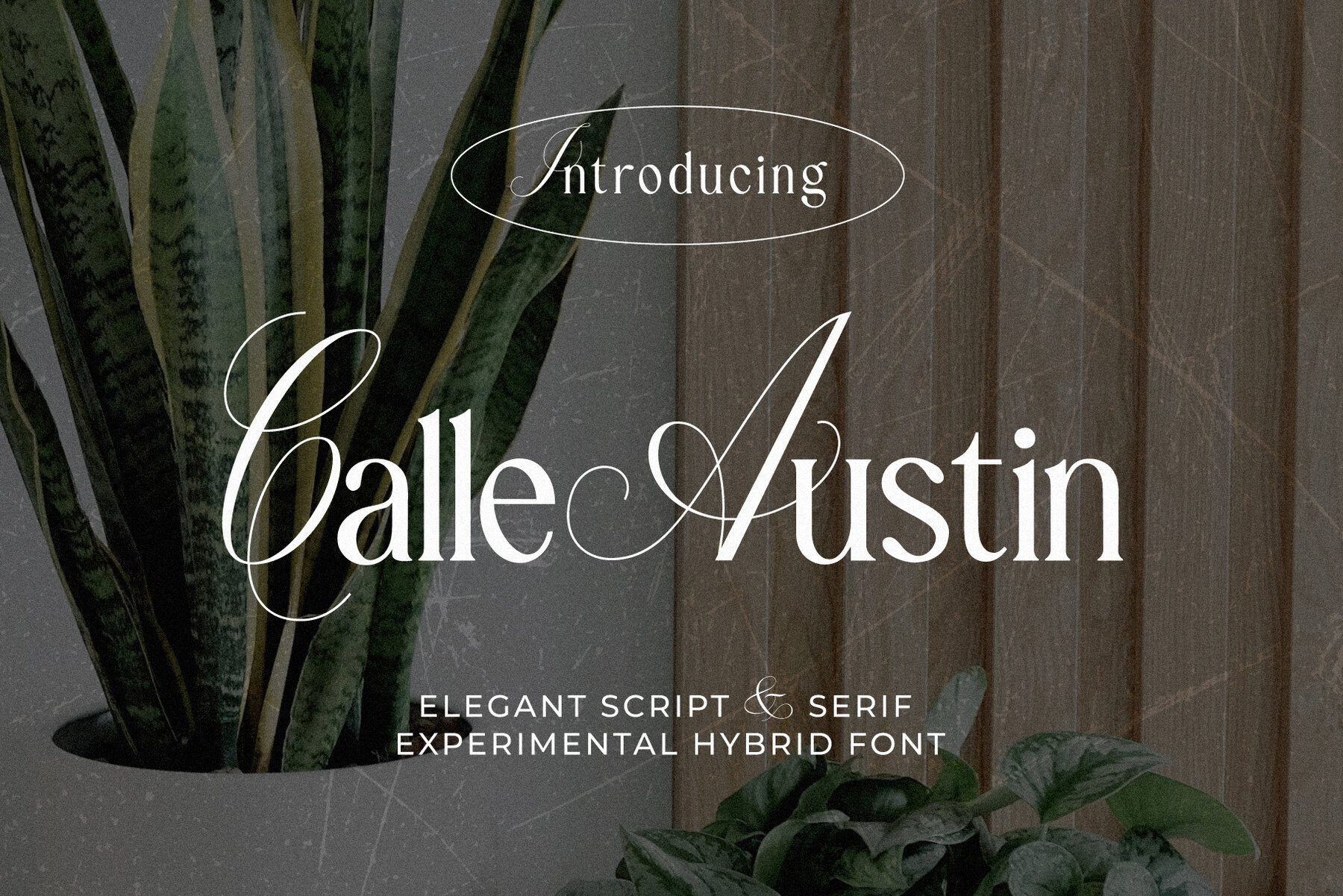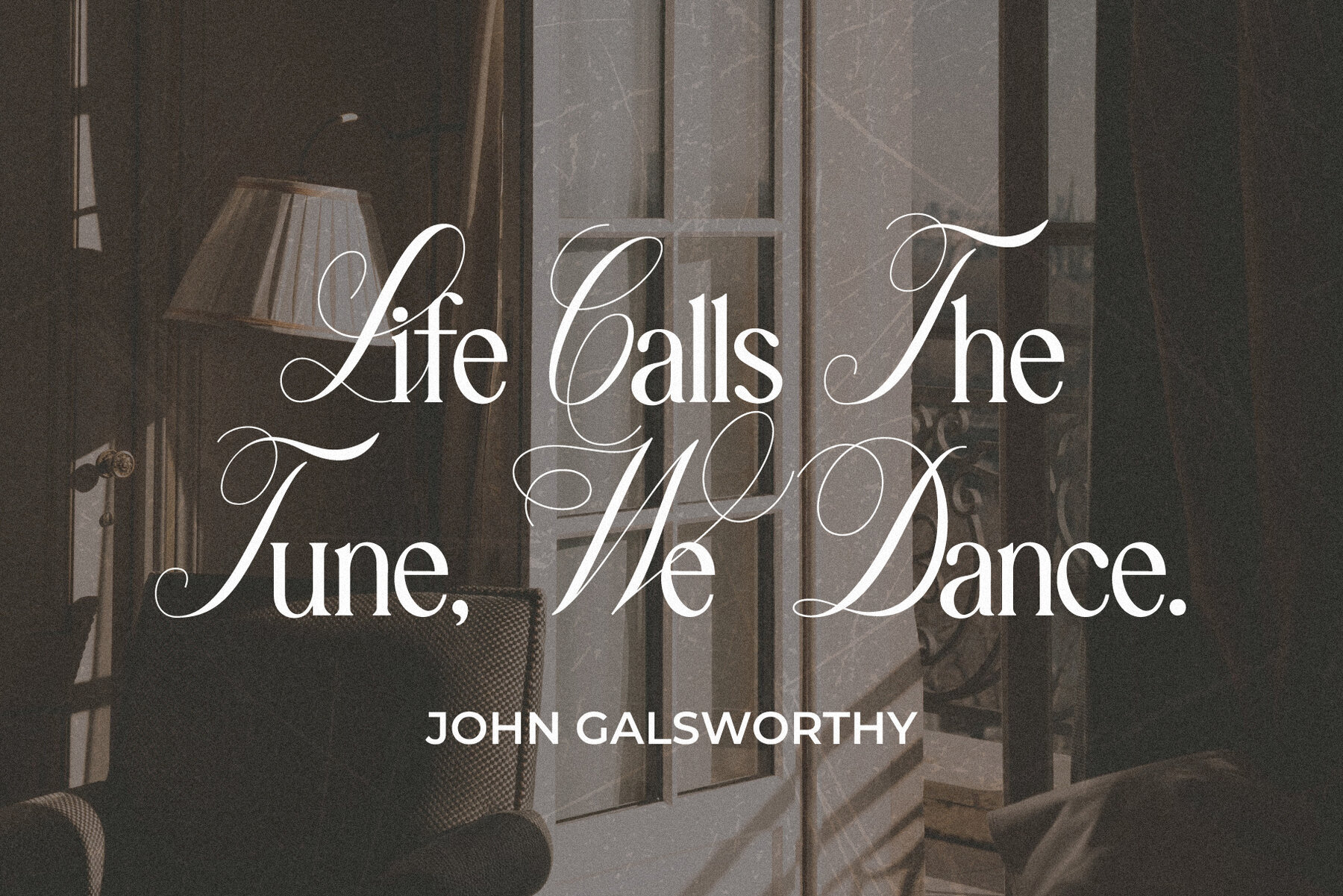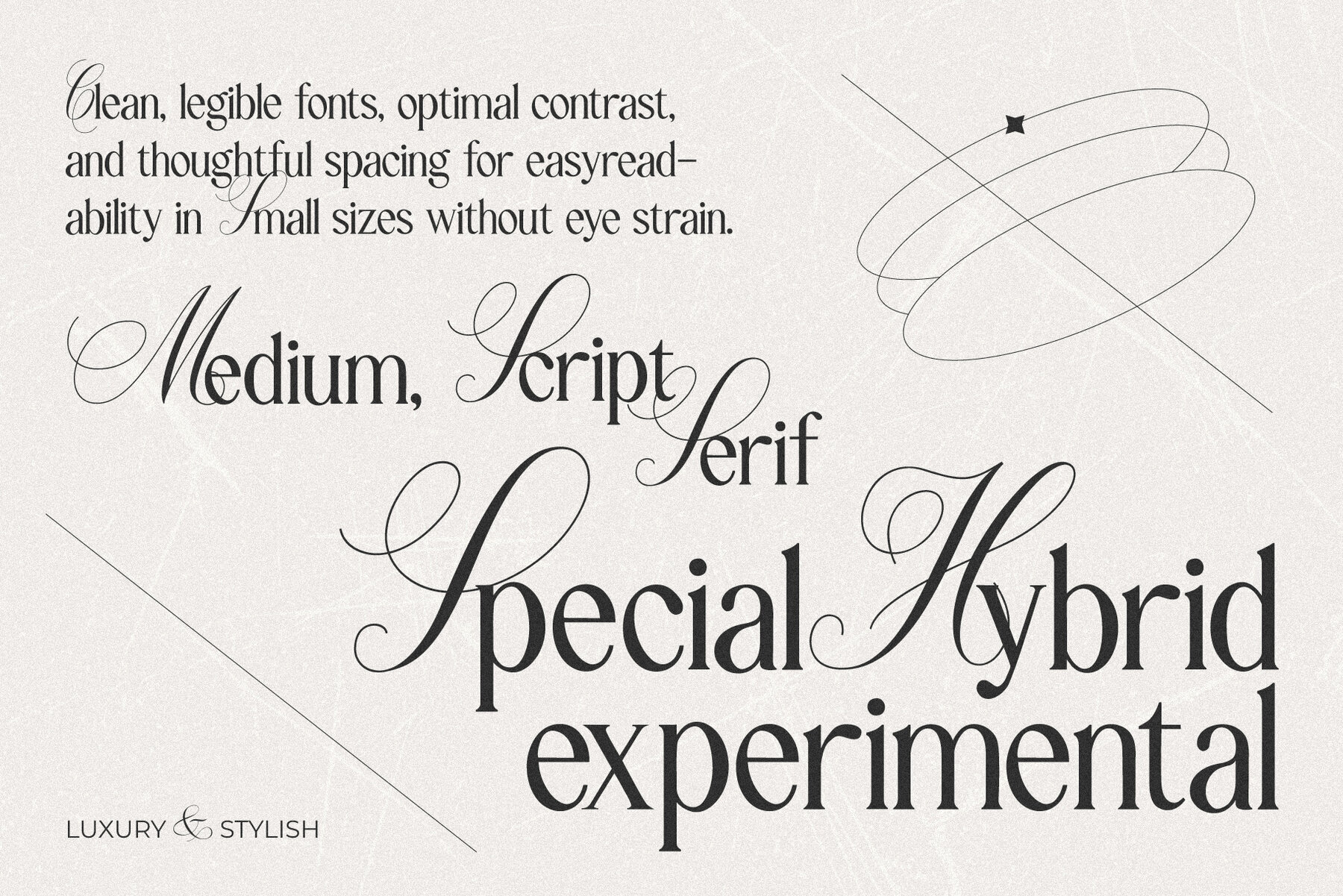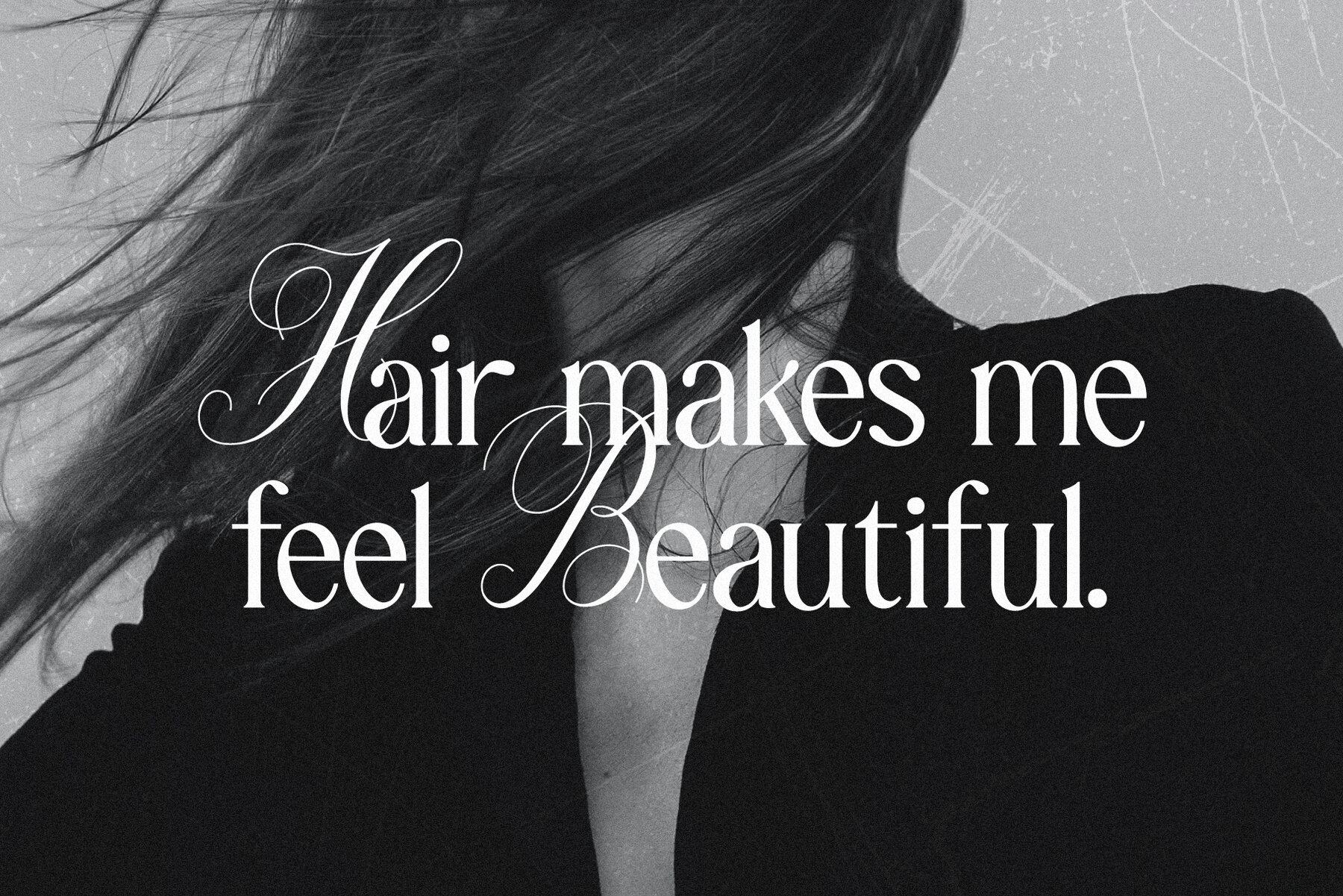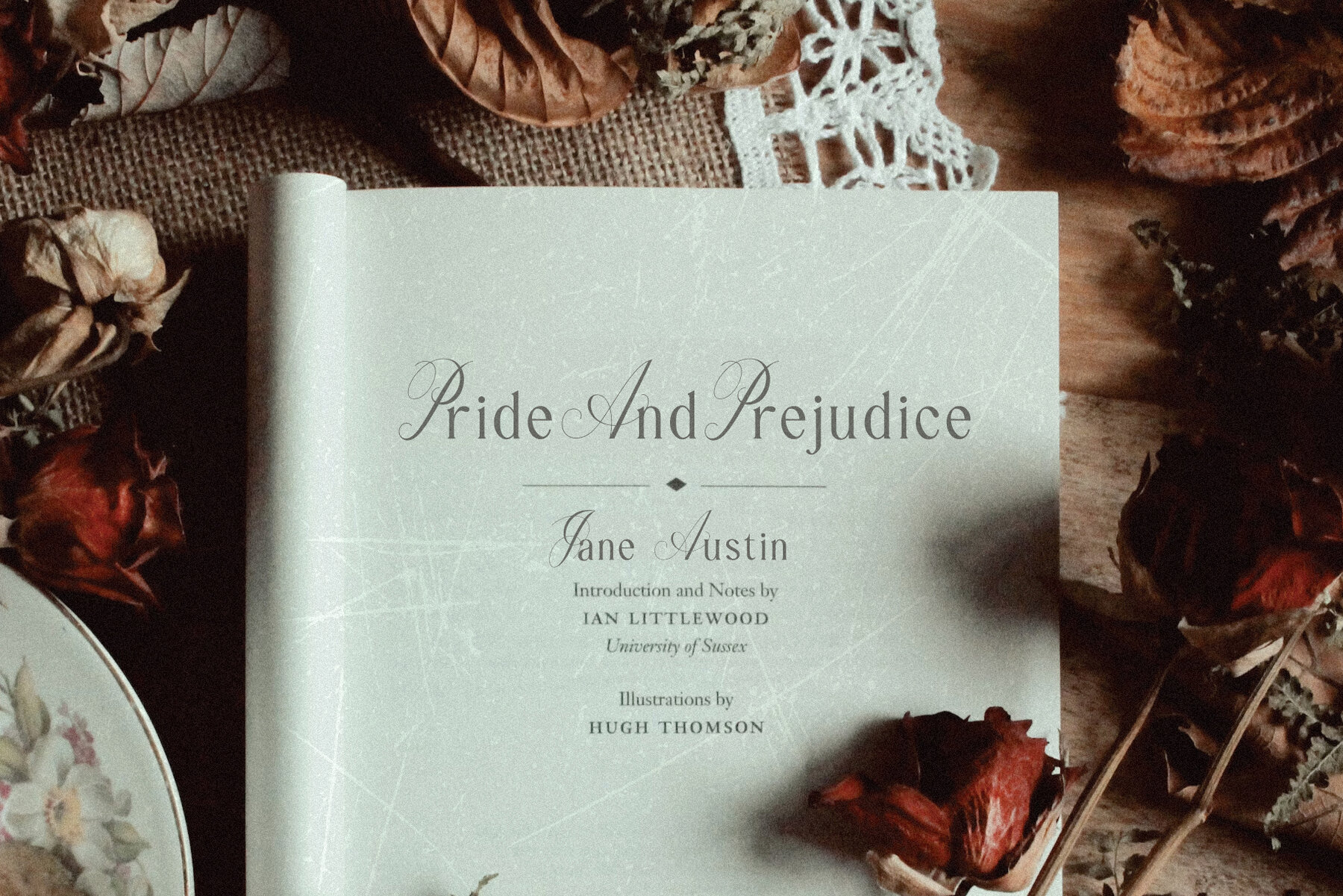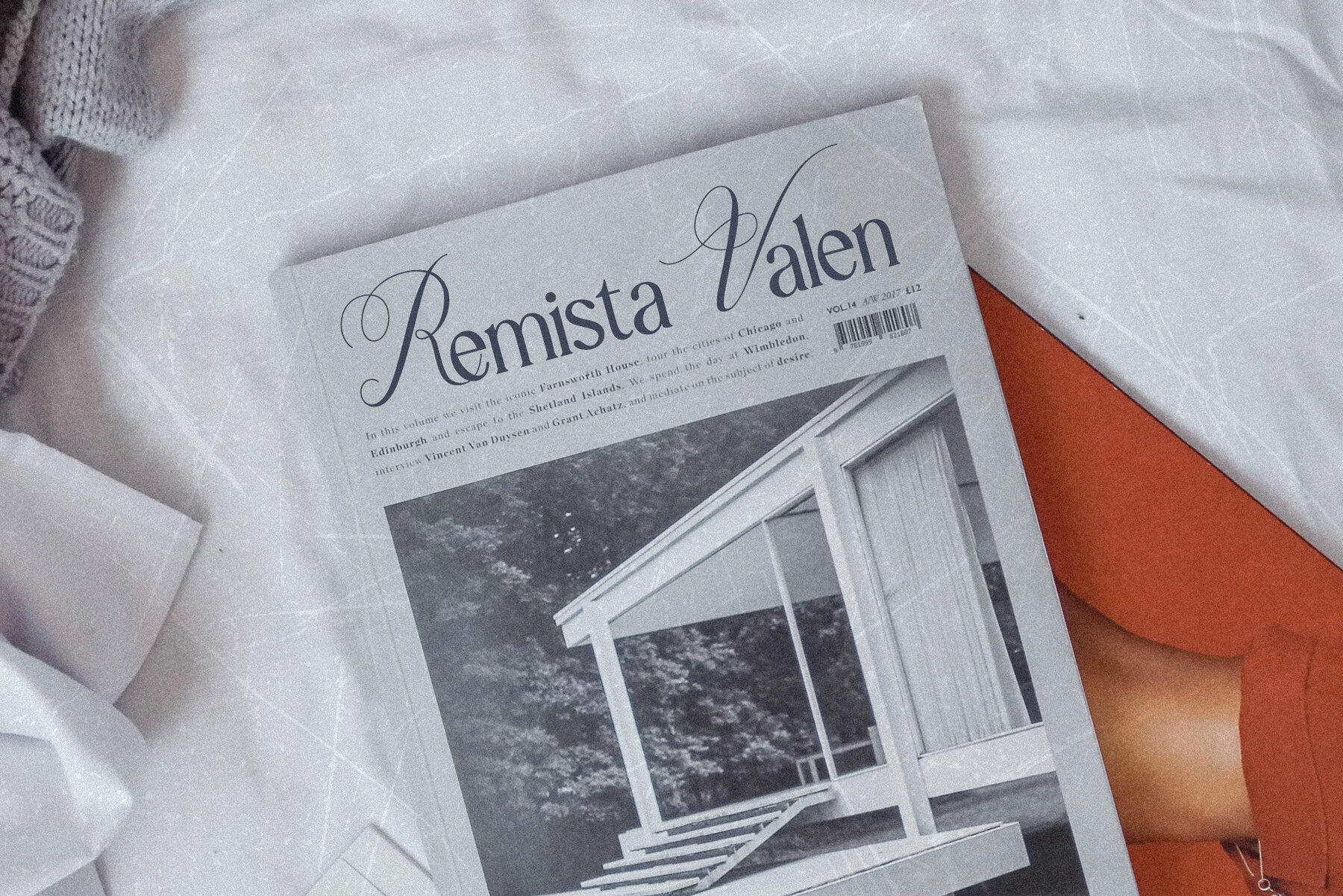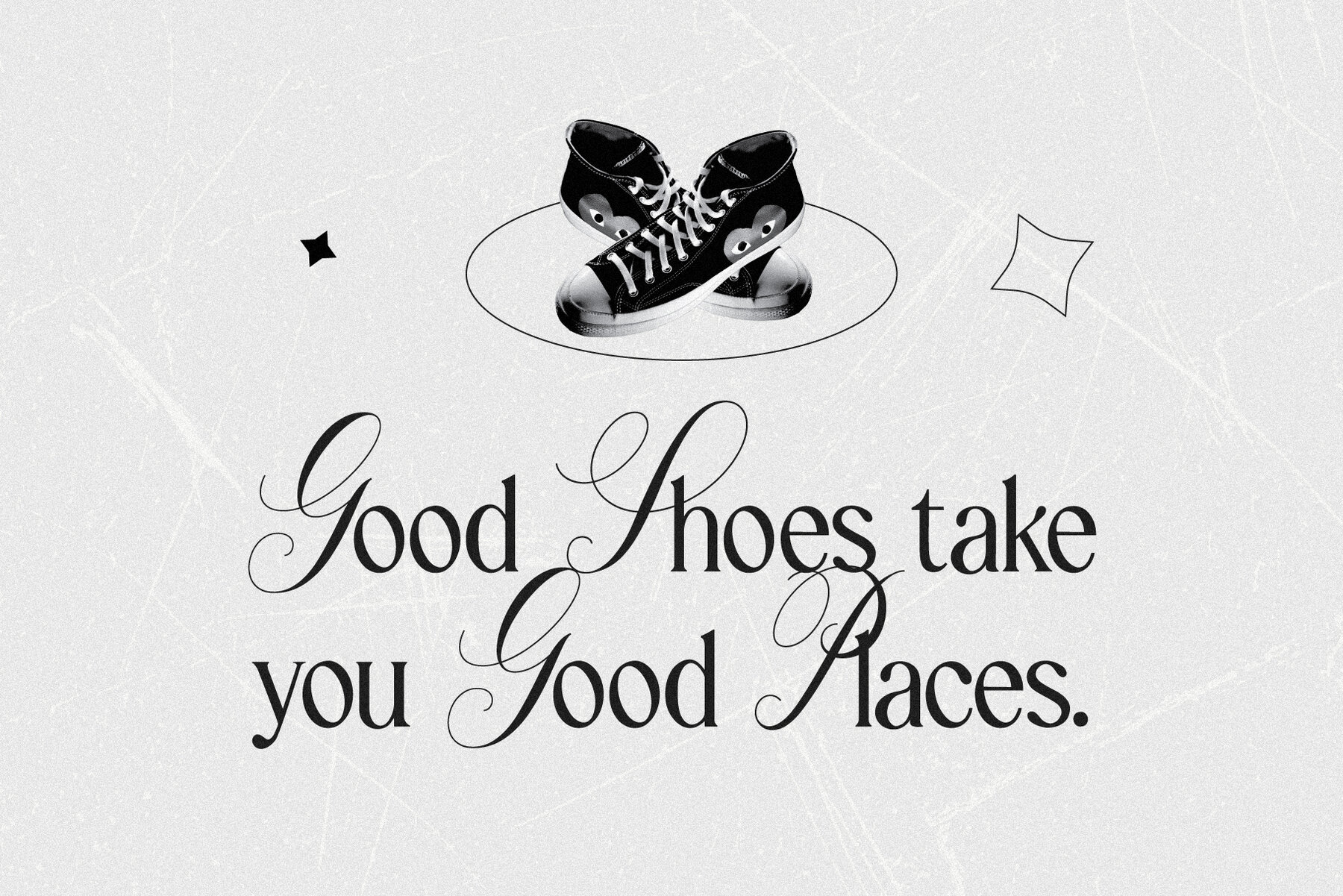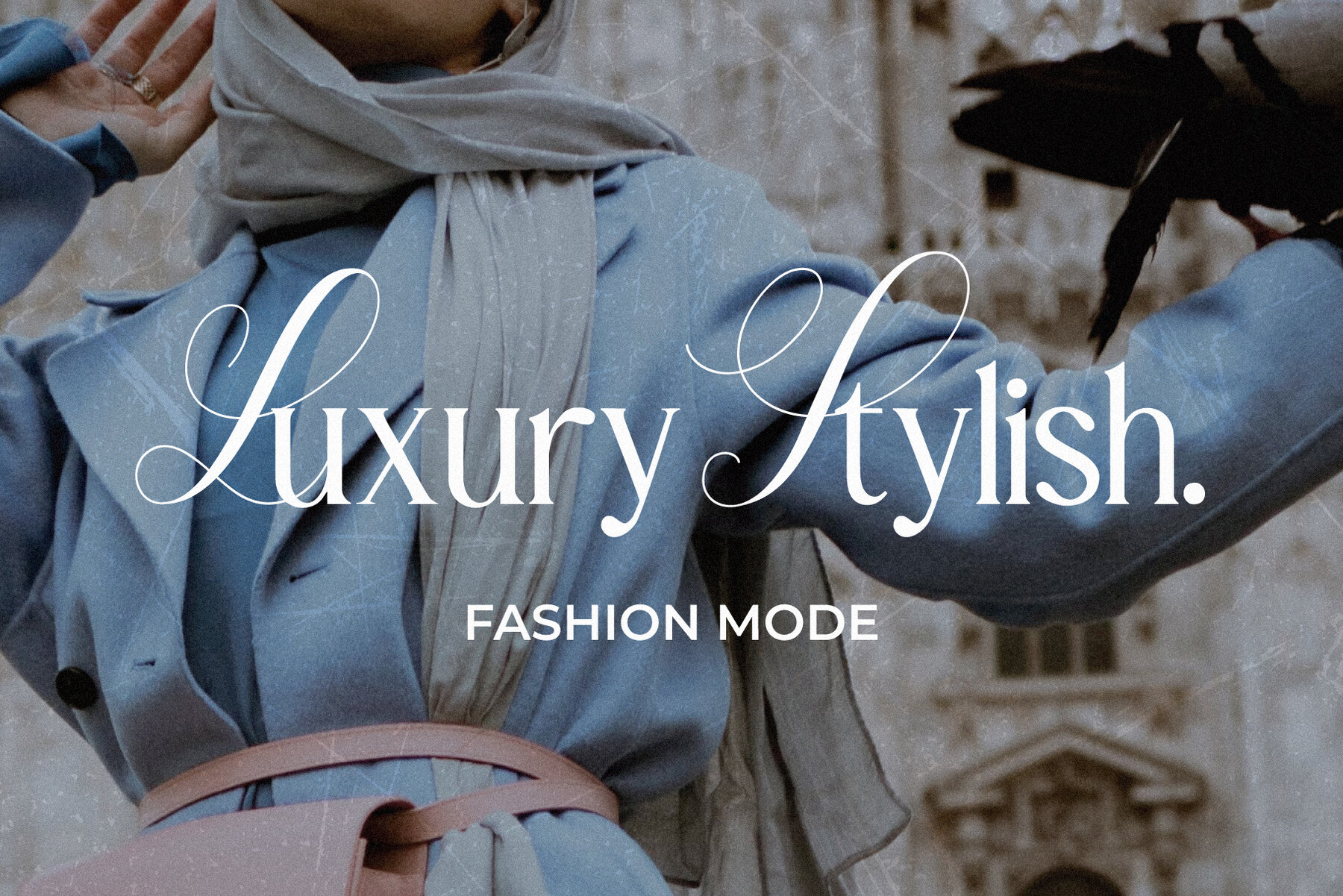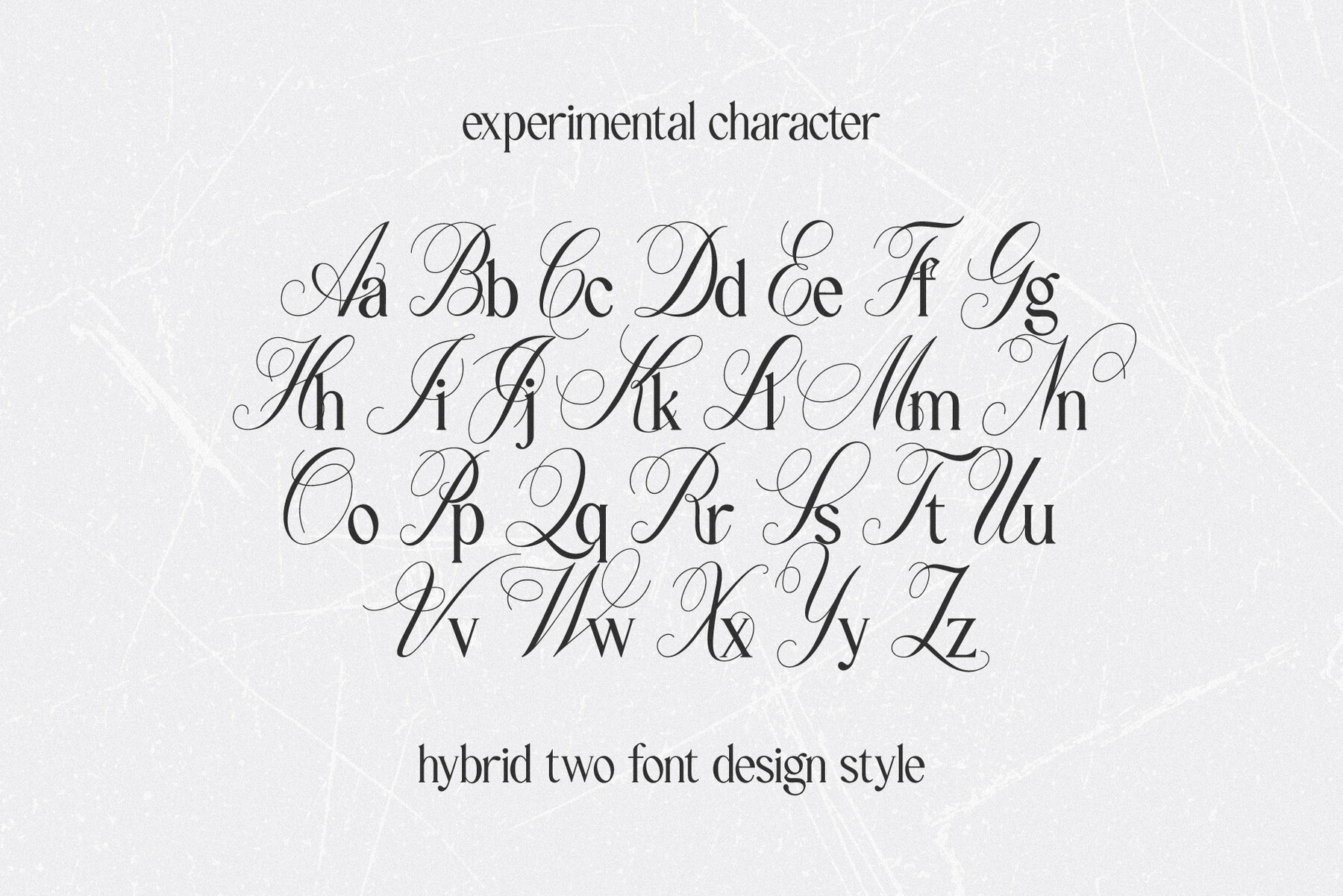
Calle Austin Font
Calle Austin Regular
Calle Austin - Hybrid Typeface Calle Austin is an avant-garde font that seamlessly fuses the elegance of script style in uppercase with the sophistication of serif style in lowercase. Tailored for advertising, magazines, social media posts, and beauty product branding, this font introduces a contemporary and refined touch to any design. FEATURES: Calle Austin is the perfect choice for designers seeking to highlight beauty and functionality in typographic design. With its unique combination of script and serif, the font adds an exclusive flair to every project while catering to a global audience with its multilingual capabilities. Add a professional touch to your designs with Calle Austin Get this font now and bring modern beauty to your most precious projects! ------------------------------------------------------------------------- Copyright © 2024 by Lettermine. All rights reserved. No part or whole of this font may be reproduced or resale.